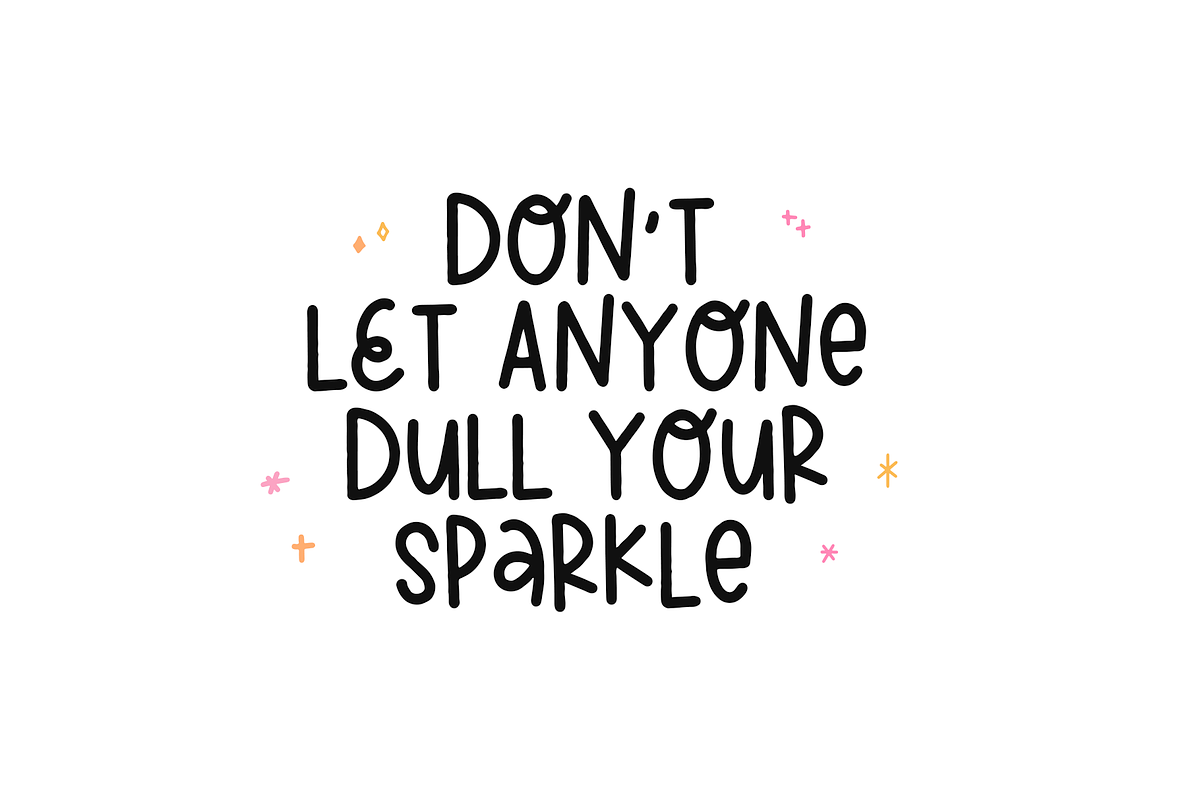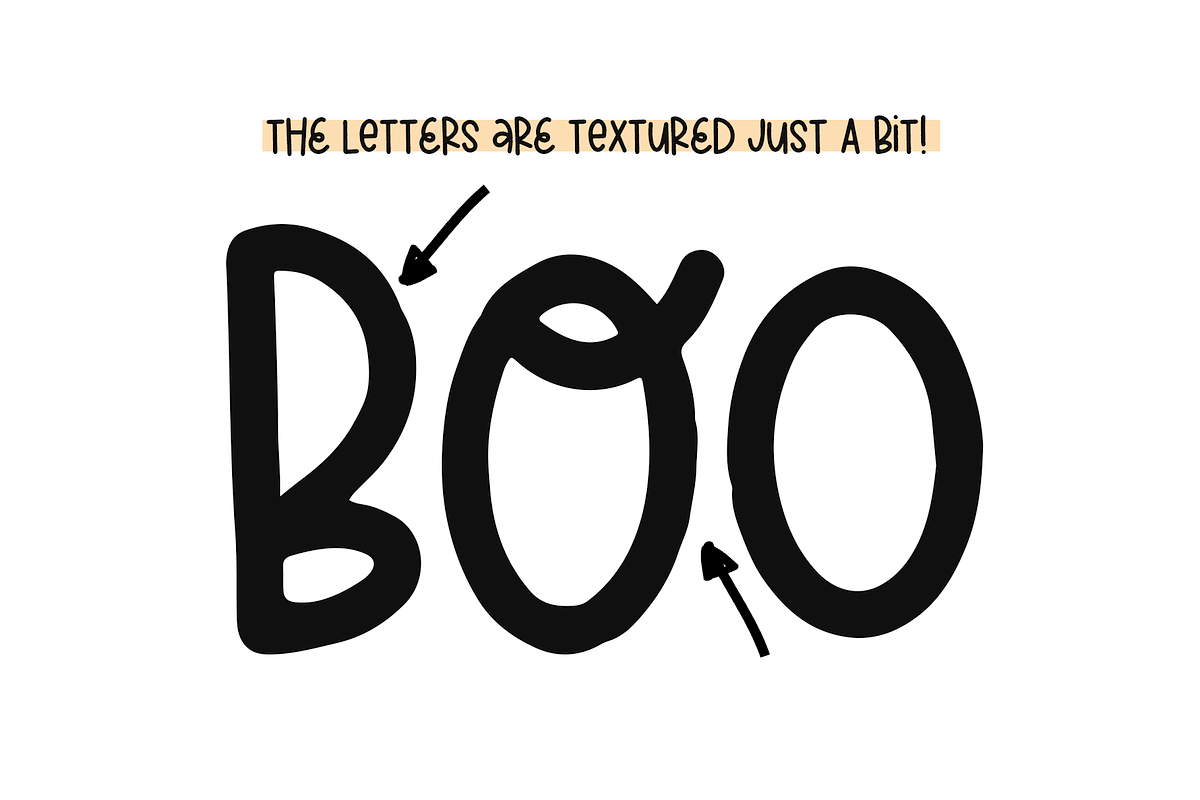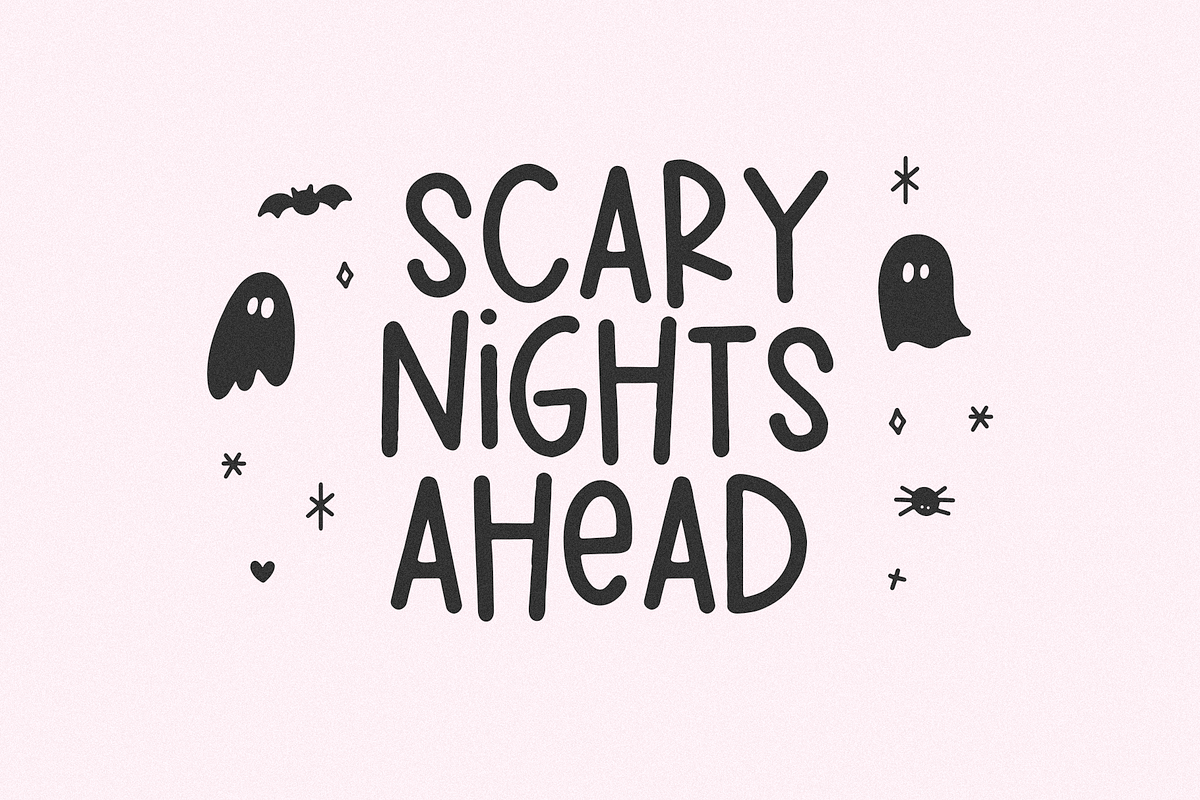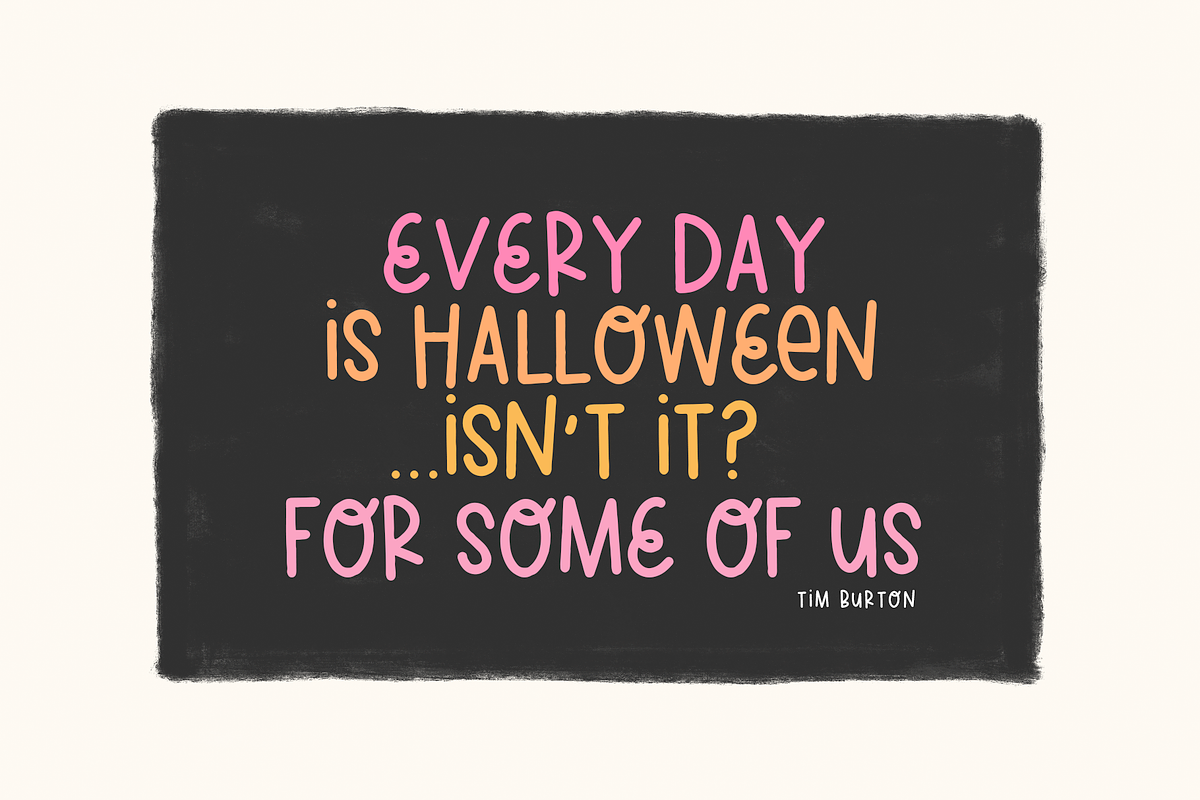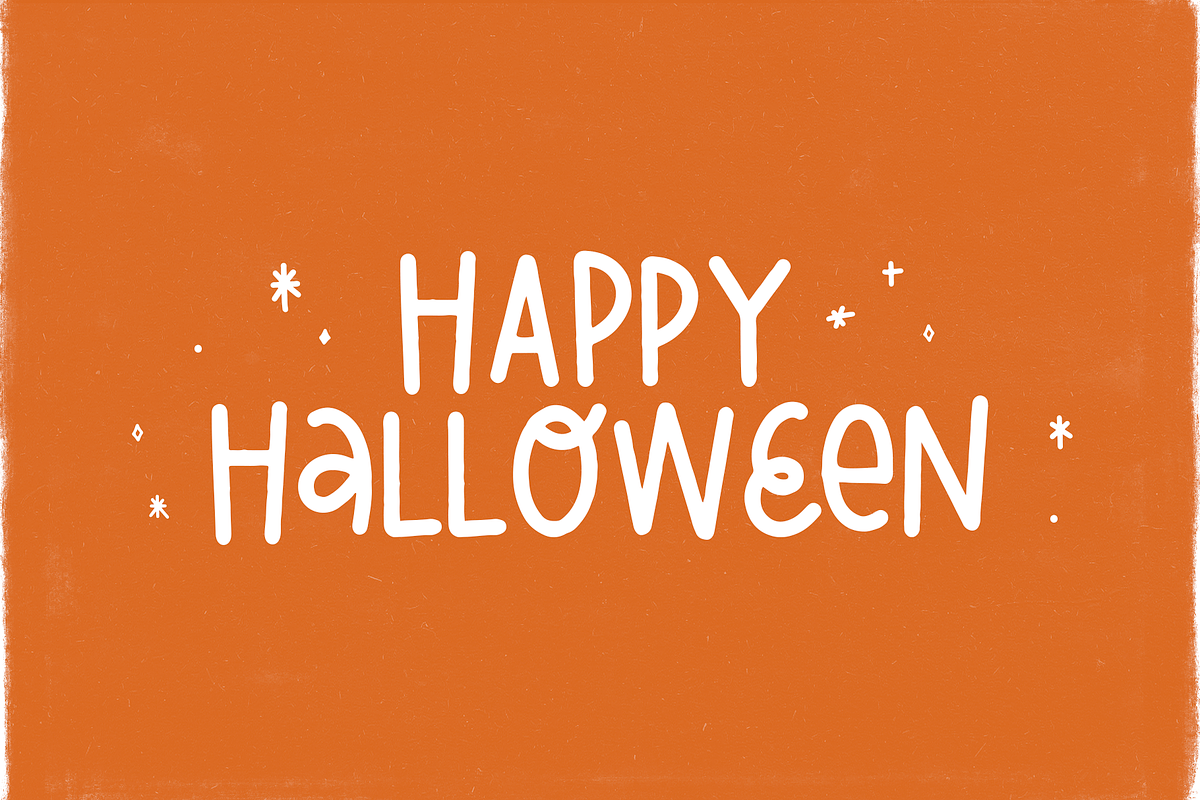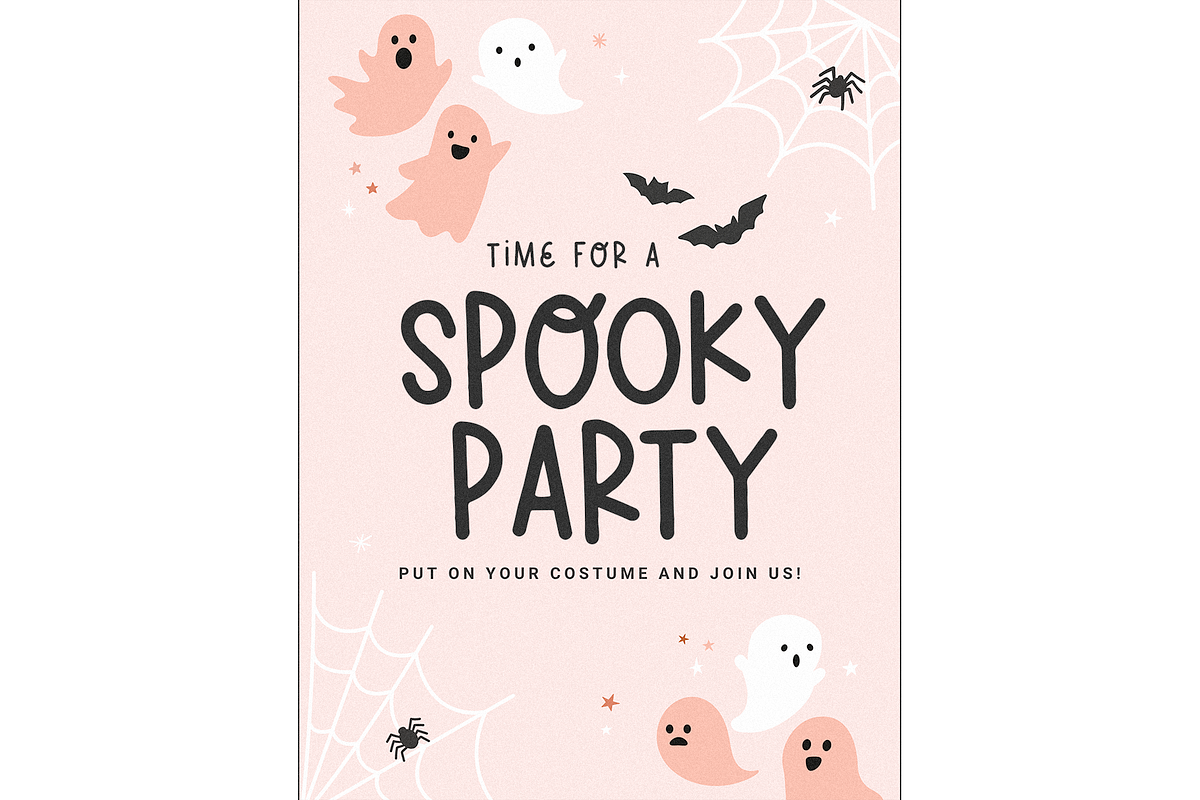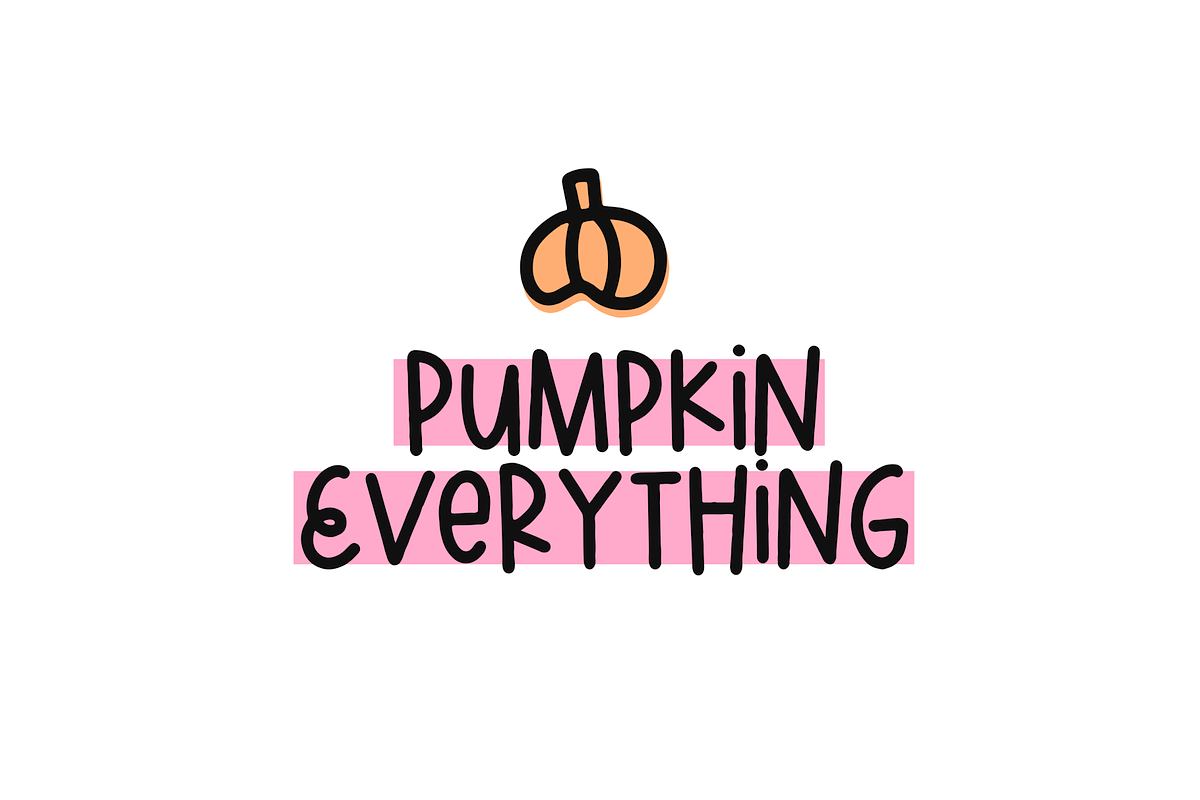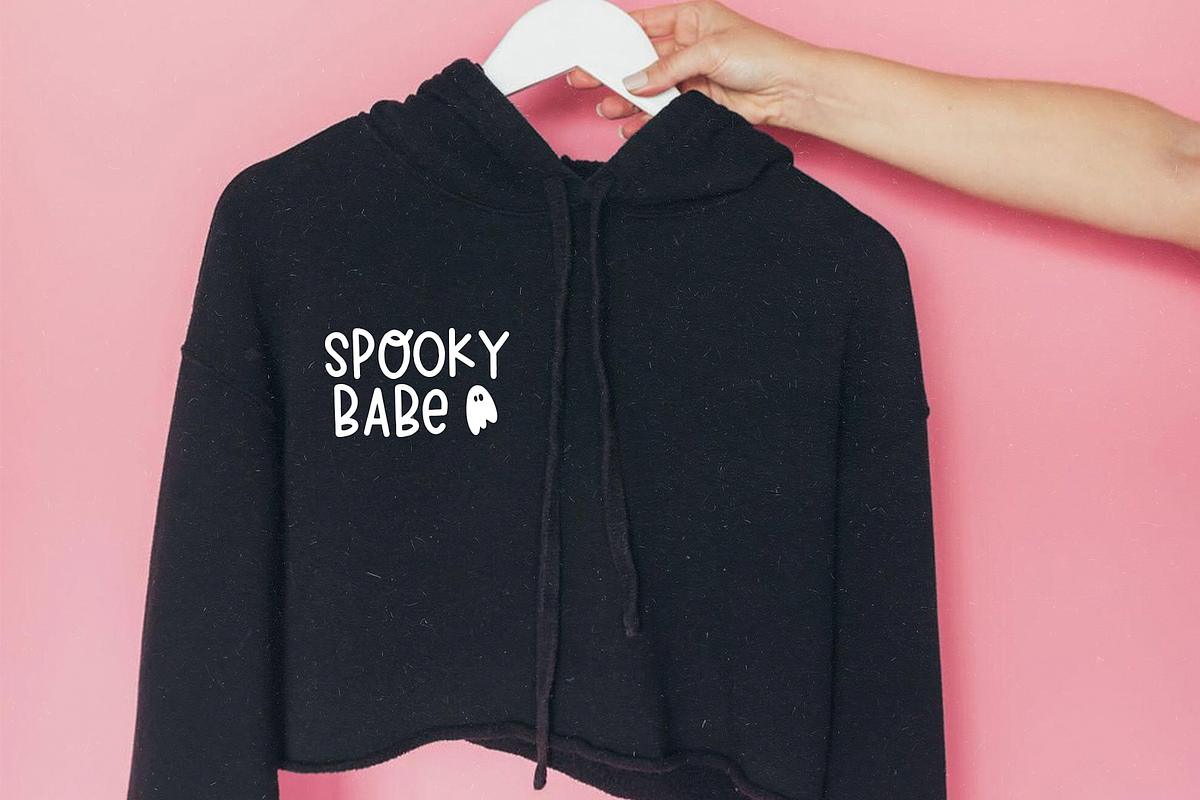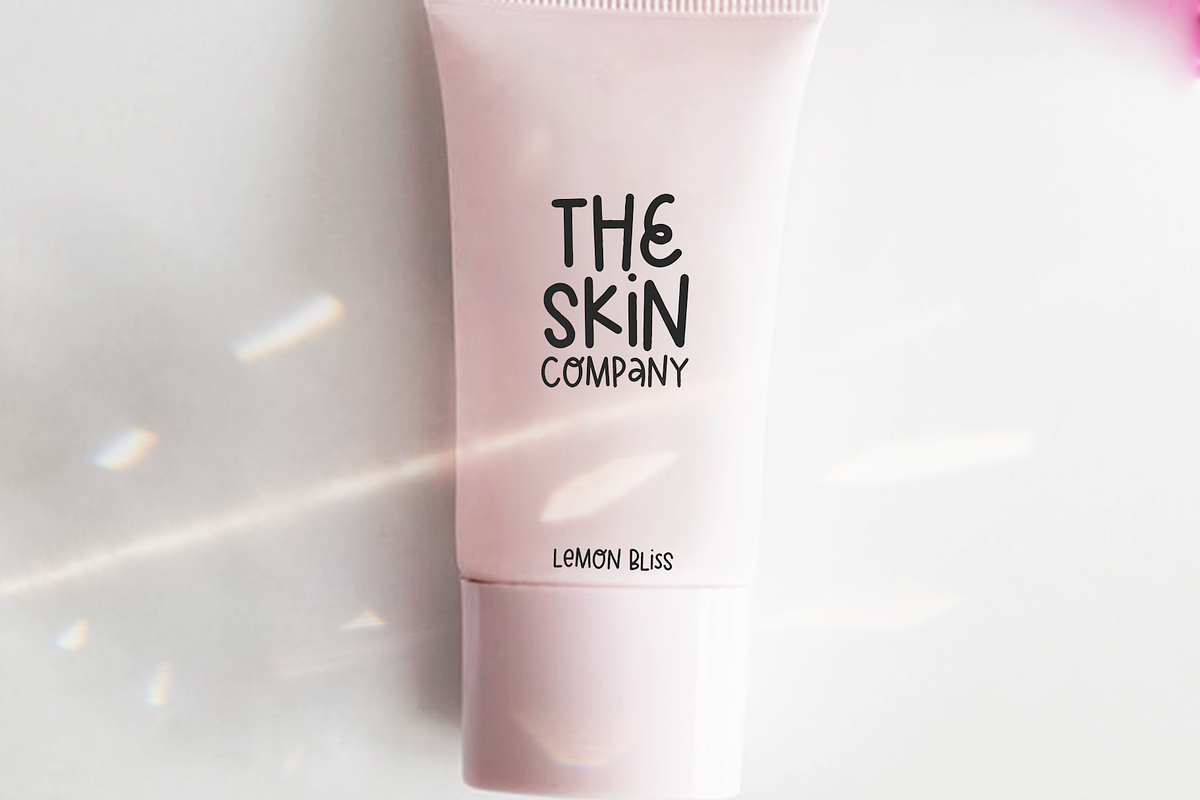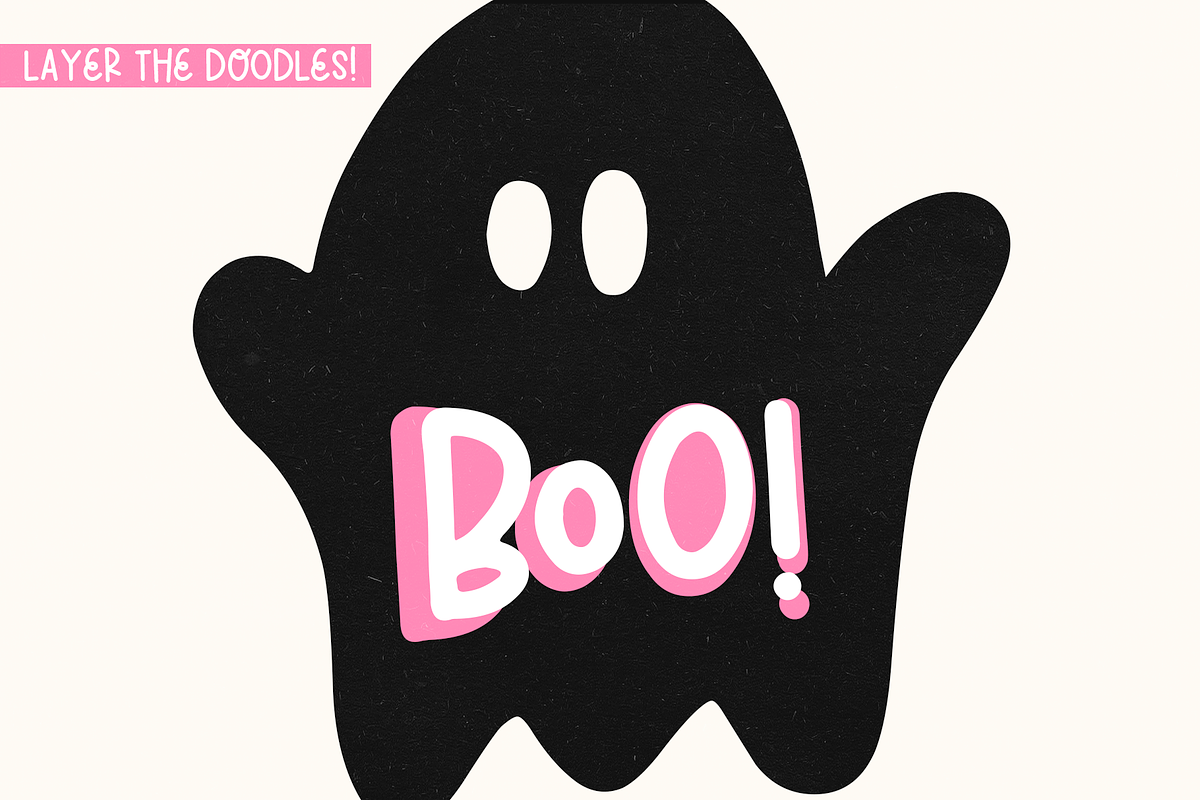
Spooky Season | Font and Doodles
SPOOKY SEASON FONT A quirky handwritten font with extra halloween themed font doodles!
This font is perfect for decor projects, social media, instagram quotes, procreate, branding, shirts, svg designs, logos, invitations and more!